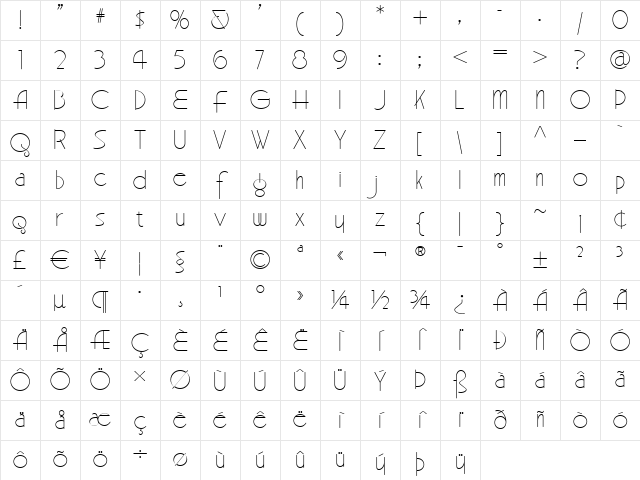
BeckerMonolineModernNF Regular Free Font
BeckerMonolineModernNF Regular
Design Context for BeckerMonolineModernNF
BeckerMonolineModernNF uses fixed-width spacing throughout, giving it the structured, systematic character associated with coding environments and technical documentation.
Pro Tip: Use BeckerMonolineModernNF with slightly increased line-height for extended reading - fixed-width spacing can feel dense in longer passages without extra breathing room.